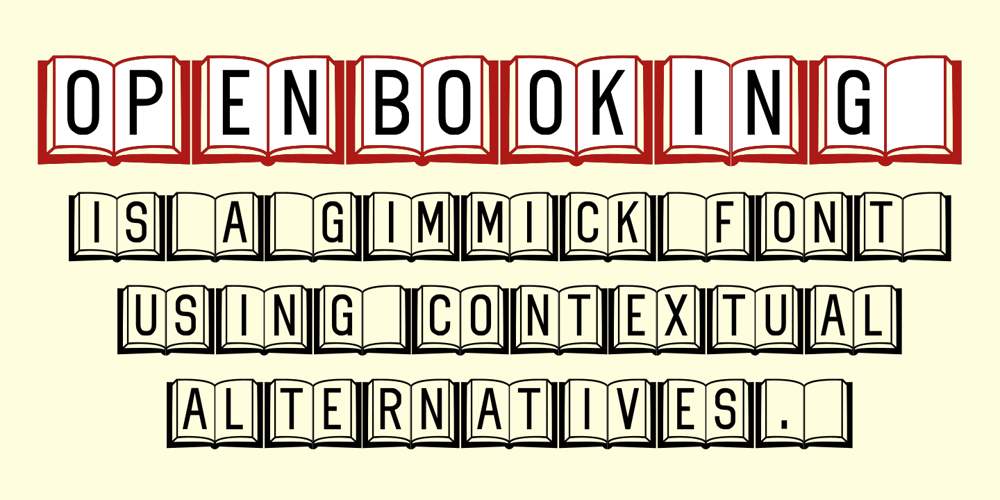
Open Book ING Font Family was designed by Robert Schenk and published by Ingrimayne Type. Open Book ING contains 1 styles and family package options. OpenBookING is a gimmick or novelty font that has letters on pages of a book. It is caps only and monospaced. The letters on the upper-case keys are on the left-handed pages of an open book and the letters on the lower-case keys are the same letters but on the right-handed pages of an open book. One could alternate upper and lower case keys to get letters on complete books, but the Opentype feature of contextual alternatives (calt) does this automatically. Several previous typefaces from IngrimayneType used the calt feature to alternate shapes that fit together in an interlocking pattern, such as alternating concave and convex shapes. OpenBookING uses the calt feature in a different way, to alternate two halves of a symmetrical shape.To provide two copies of numbers and common symbols, some non-alphabetical characters are unavailable because their slots were taken by the second form of the number or common symbol. If stylistic set one (ss01) is turned on, spaces are replaced with empty pages. This may leave you with unwanted spaces at the end of lines, and to eliminate them, turn off the feature (or change the font) for these spaces. The empty pages can be used in a layer to add color to the text. There is also a second set of empty pages with a filled page that can also be used in layers. (See poster for examples.) These pages are on the (logicalnot multiply) and (register divide) characters for the first set and on the (ordmasculine ellipsis) and (macron trademark) keys for the second set. Finally, OpenBookING has a large set of accented characters if anyone should need them.The letters used on the books were derived from the font Myhota-Bold. For a related typeface of letters on book covers, see NewLibrary. OpenBookING has limited uses and is priced accordingly.